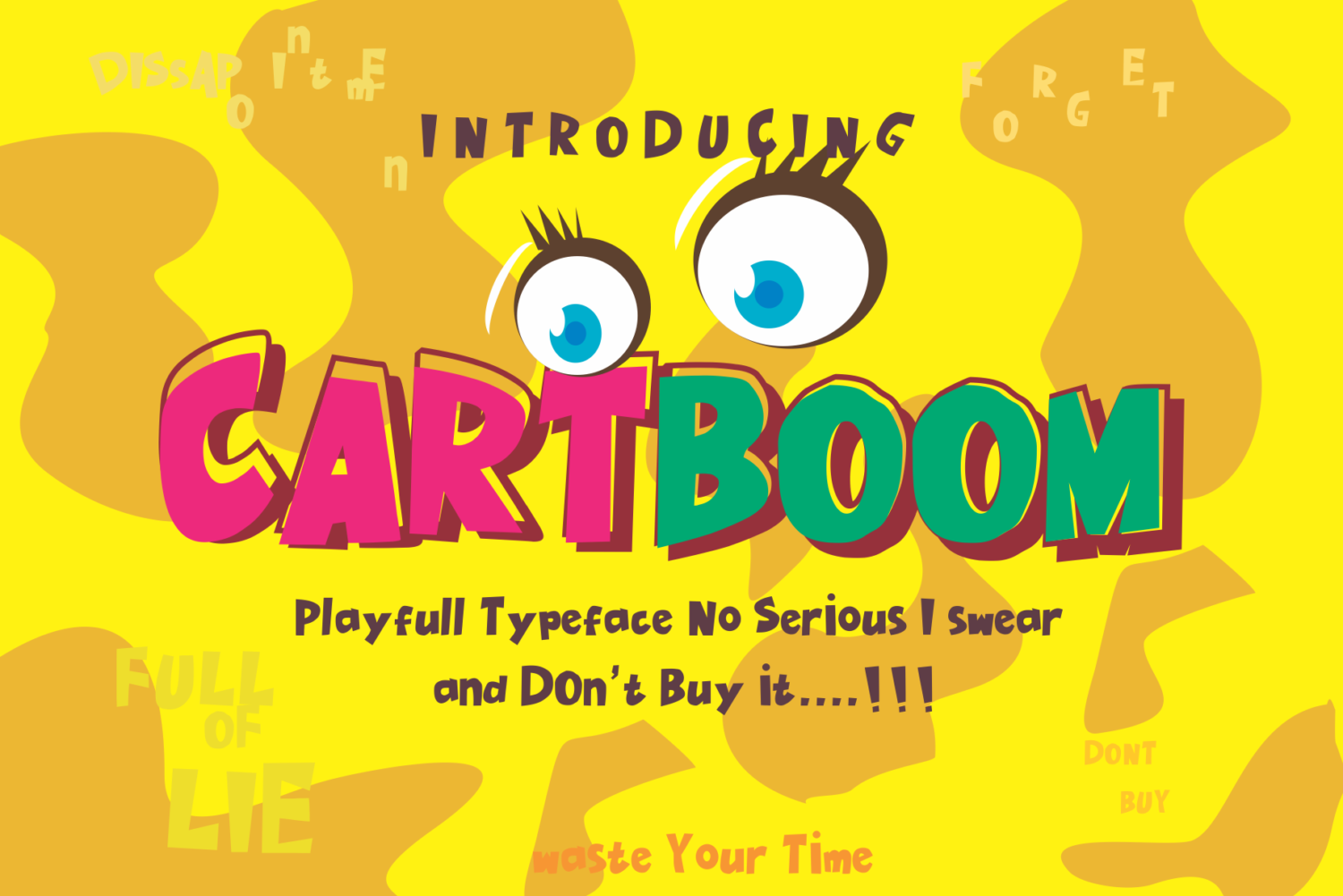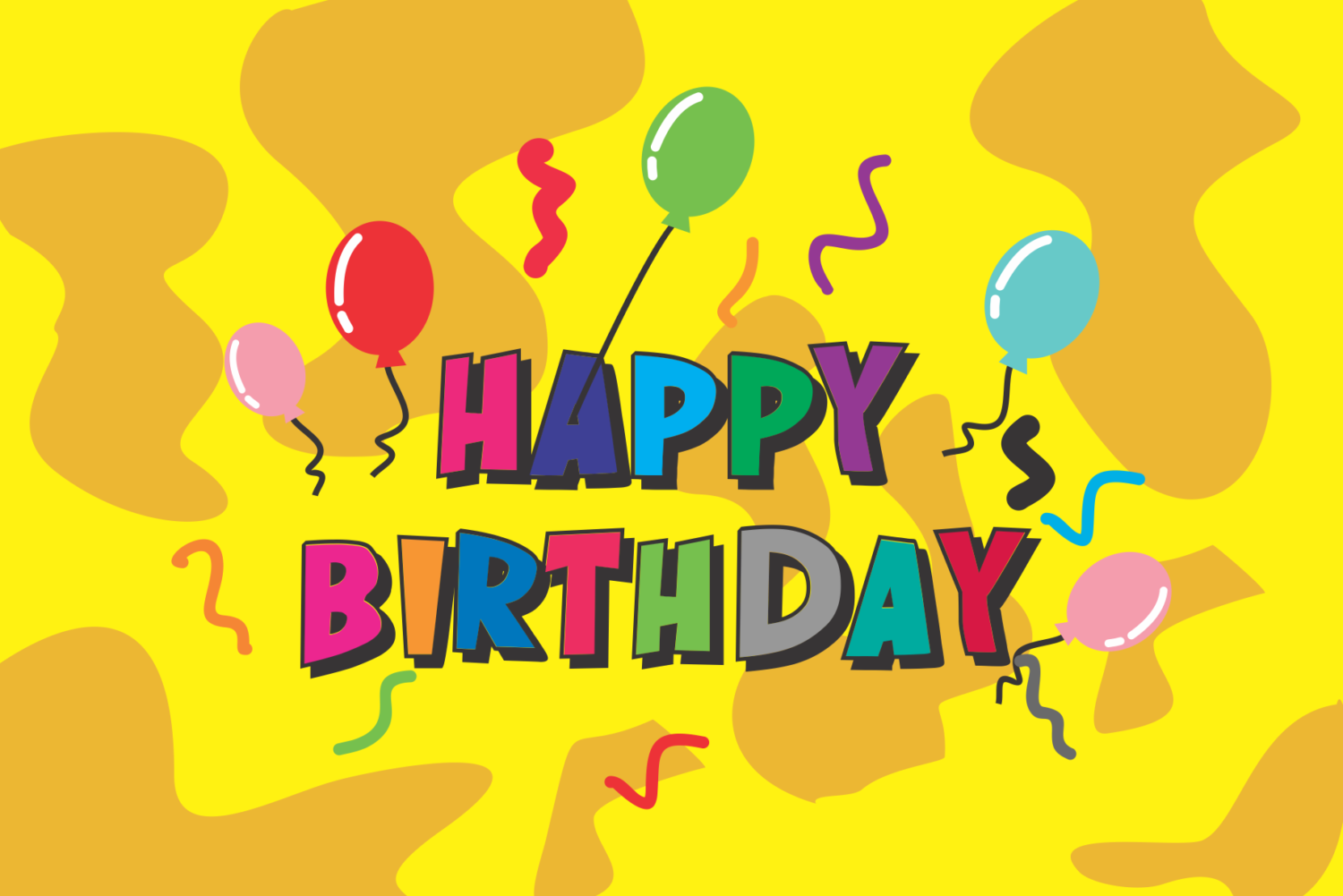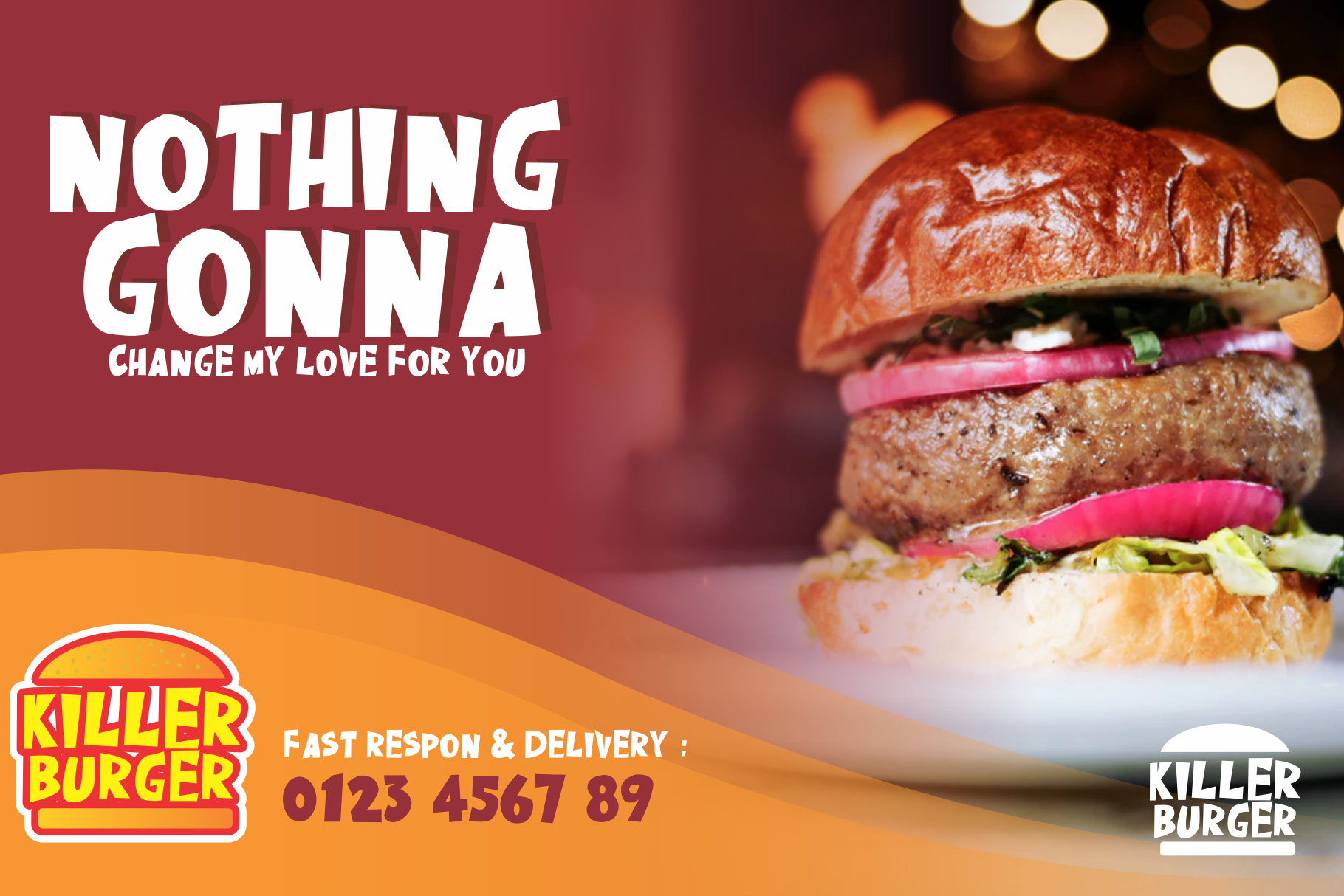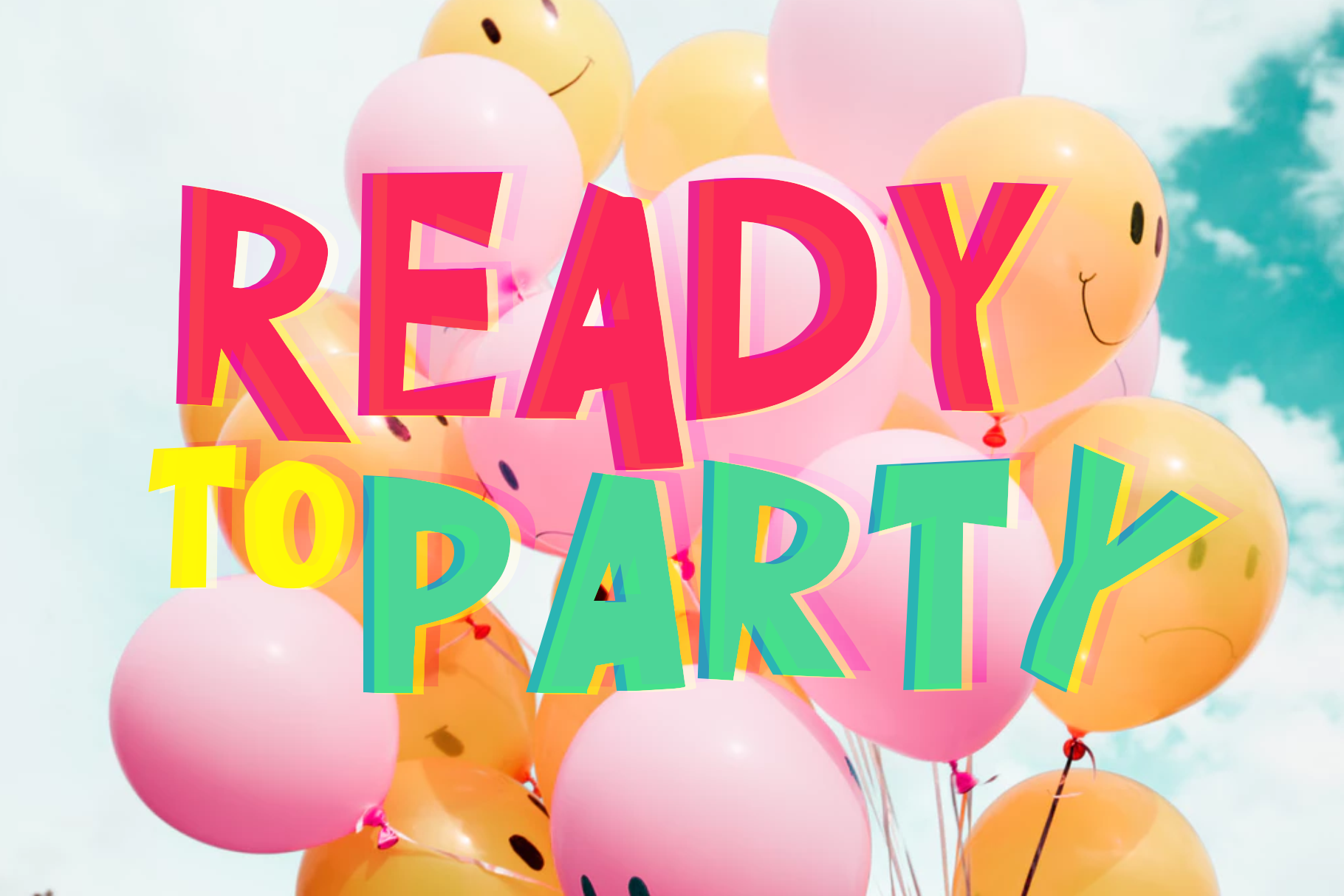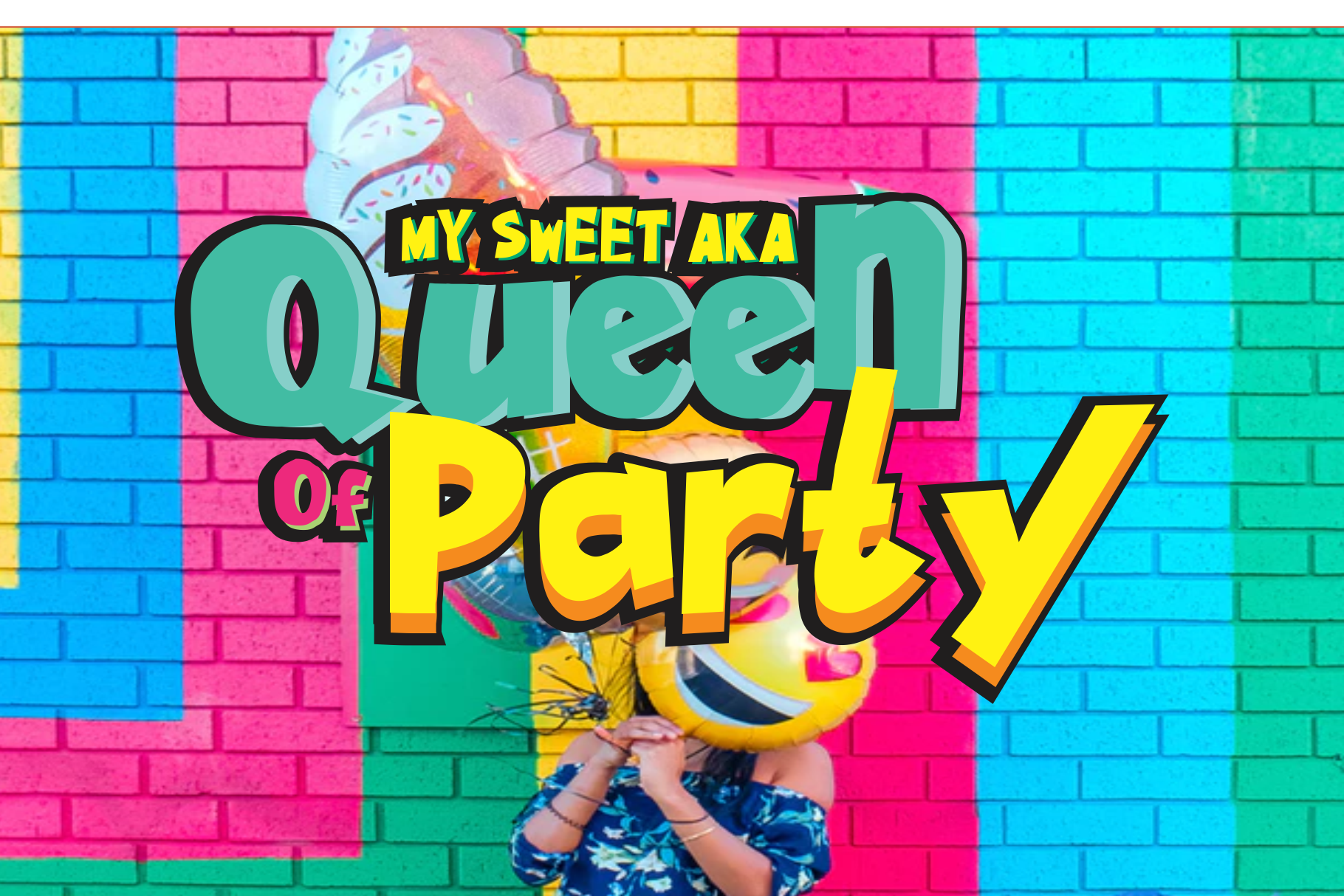
Cartboom Free Font
Cartboom Free Font is a font that is made very relaxed and enjoys, fun, emotion with laughter, starting from trying to draw directly from the pen tool, producing fonts for display, for design themes that are playful, relax, fun, humor, cartoons. This free typeface was designed by a talented Muhammad Taufiq Hidayatullah. If you like it don’t forget to check out the full version.